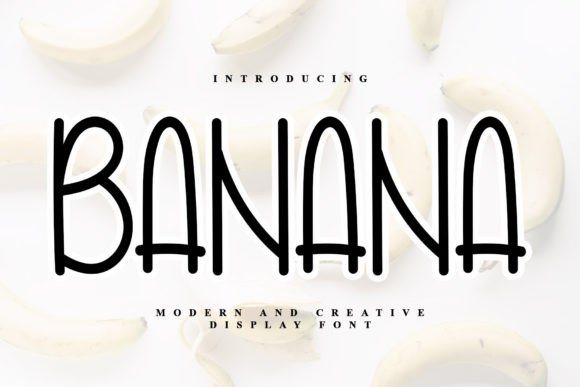
Introducing Banana Font: Elevate Your Designs with Elegance
Are you on the hunt for a font that adds a touch of sophistication and timeless charm to your projects? Look no further than the Banana Font. This stunning display font is designed to captivate with its elegant touch, making it perfect for designers and crafters seeking to create spectacular designs.
The Beauty of Banana Font
Banana Font boasts an incredibly distinct style that is both modern and classic. Its unique lettering is carefully crafted to provide an air of refinement, making it an excellent choice for a wide range of projects. Whether you’re working on a logo, branding materials, or creative crafts, Banana Font is sure to leave a lasting impression.
Key Features of Banana Font
- Elegant Touch: Banana Font is characterized by its smooth, flowing lines and elegant curves, giving it a sophisticated look.
- Distinctive Style: The font’s unique design makes it stand out from more traditional fonts, ensuring your projects grab attention.
- Timeless Appeal: Unlike trendy fonts that may quickly go out of style, Banana Font’s classic design ensures it remains relevant for years to come.
- Versatility: From digital designs to print materials, Banana Font adapts seamlessly, making it a versatile addition to your font collection.
Banana Font is not just a font; it’s a tool for creativity. Designers will appreciate its flexibility and the way it complements a wide range of design aesthetics. Crafters, on the other hand, will love how it brings a professional touch to handmade projects, such as custom signs, invitations, and DIY crafts.
- Branding and Logos: Use Banana Font to create a memorable logo or to enhance your brand’s visual identity.
- Digital Art: Add a touch of elegance to your digital art, social media posts, and website headers.
- Print Materials: Elevate your business cards, brochures, and flyers with this sophisticated font.
- Crafting Projects: From scrapbooking to making custom vinyl signs, Banana Font can add a professional and stylish touch.
- Pair with Complementary Fonts: Combine Banana Font with simpler fonts to create visual interest and hierarchy in your designs.
- Experiment with Colors: While the font itself is elegant, experimenting with different colors can help match your design’s mood and theme.
- Play with Sizes: Don’t be afraid to vary the font size to emphasize certain parts of your text, creating a dynamic visual effect.
Banana Font is more than just a font; it’s a design statement. Its elegant touch, distinctive style, and timeless appeal make it an invaluable resource for designers and crafters alike. Whether you’re looking to elevate your professional projects or add a touch of sophistication to your crafts, Banana Font is sure to exceed your expectations. So, fall in love with its beauty and let it inspire you to create spectacular designs that stand out.